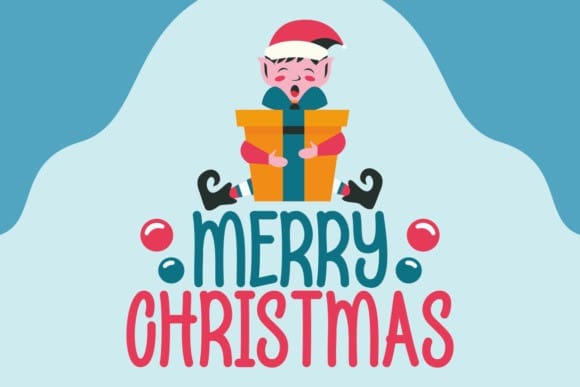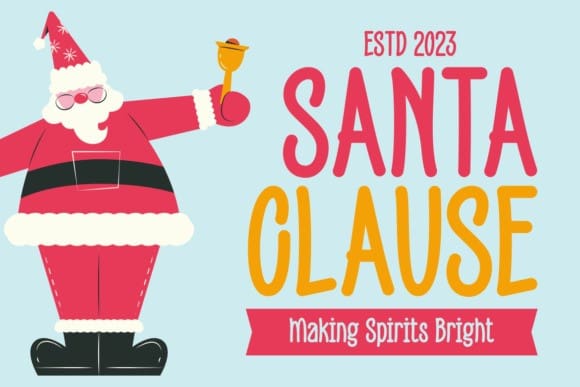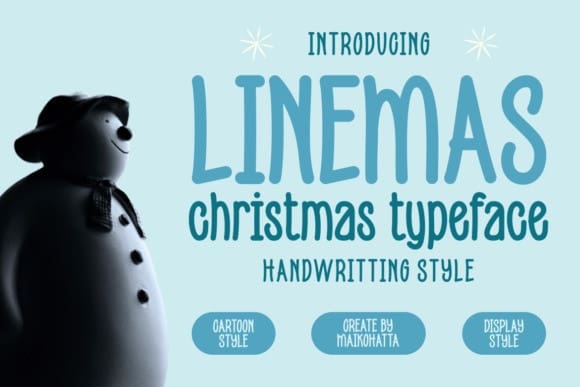
Linemas Font
Linemas Font, This font is specifically designed to create a Christmas atmosphere and mood. It is often used in graphic design, greeting cards, posters, and various other visual elements related to the celebration of Christmas.